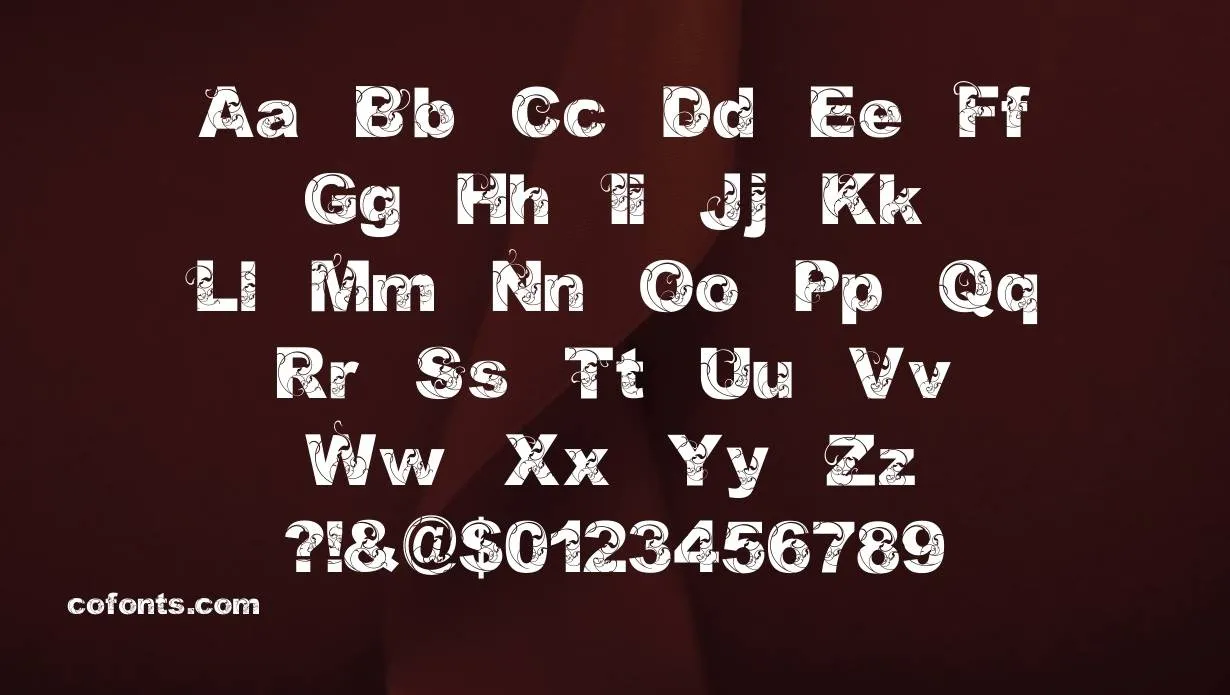
About Orial Font
Orial Font is a decorative typeface designed to add character and visual impact to creative projects. Its distinctive letterforms make it well suited for logos, headlines, posters, and branding materials where uniqueness is essential. The font balances artistic flair with readability, allowing designers to create eye-catching designs without sacrificing clarity. Orial Font is often chosen for modern and expressive layouts in both print and digital media.